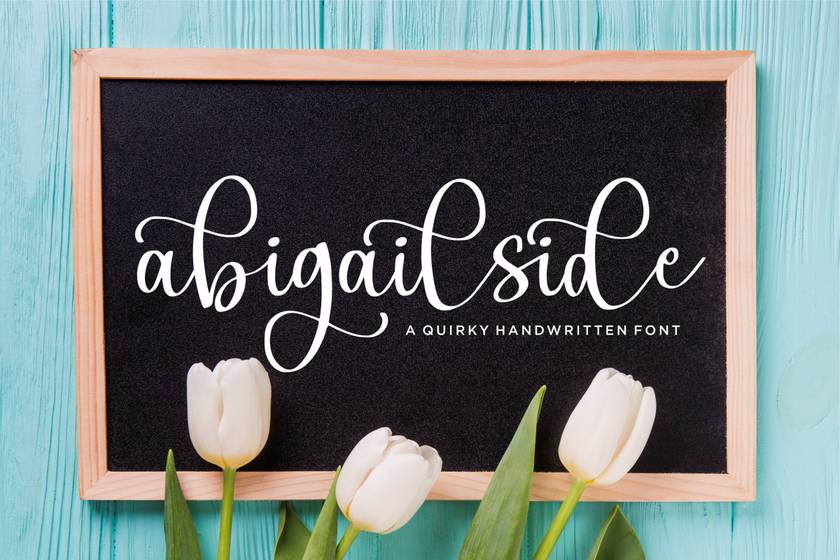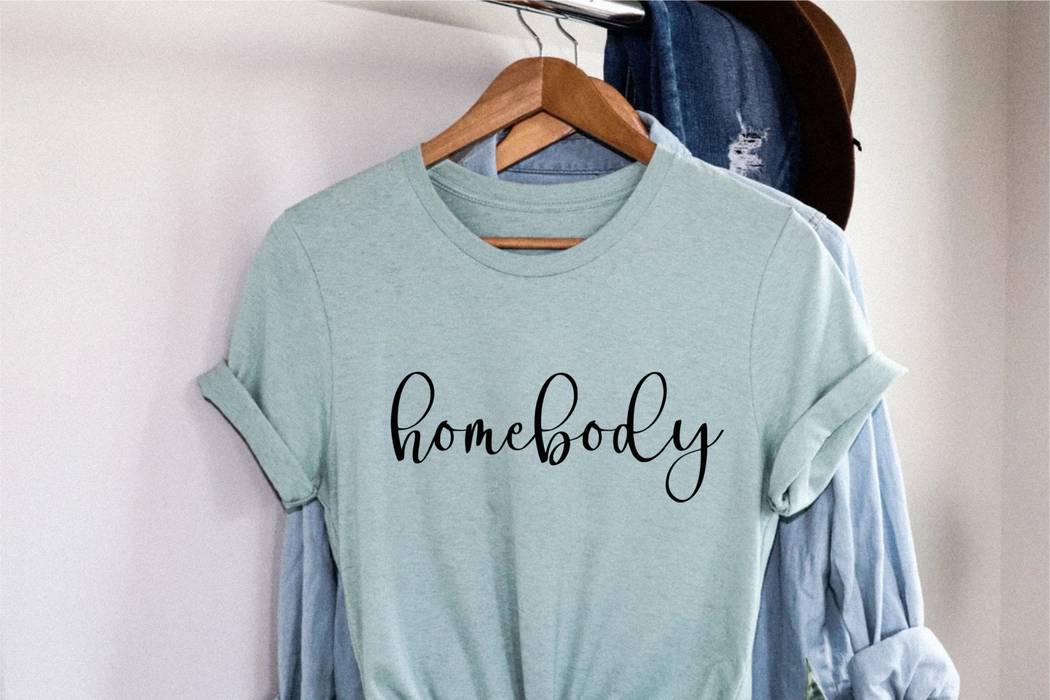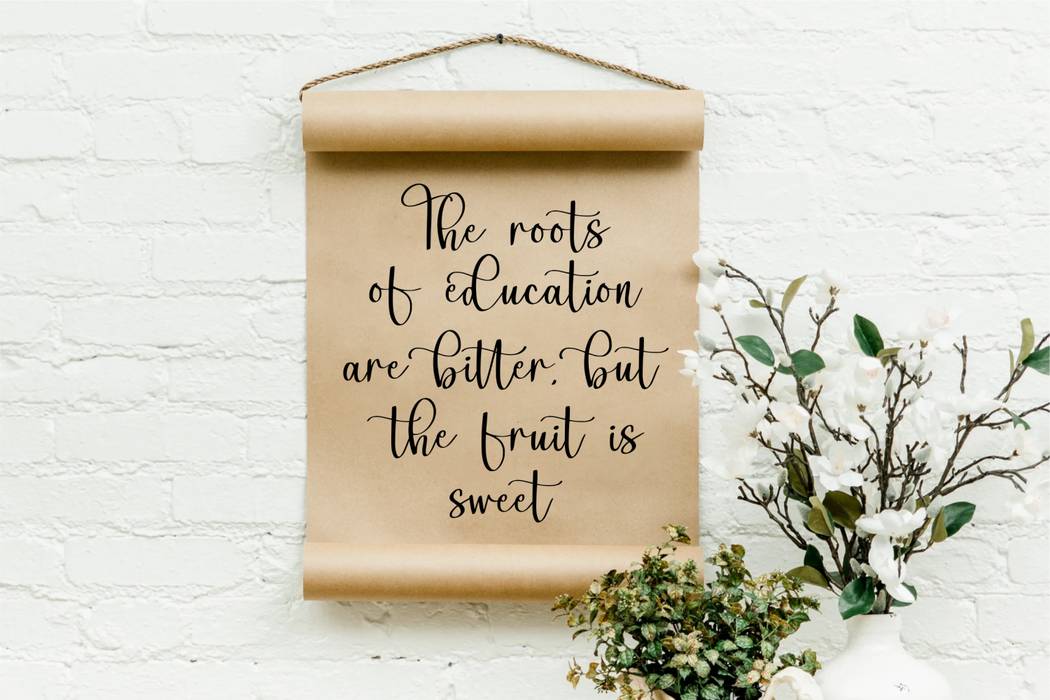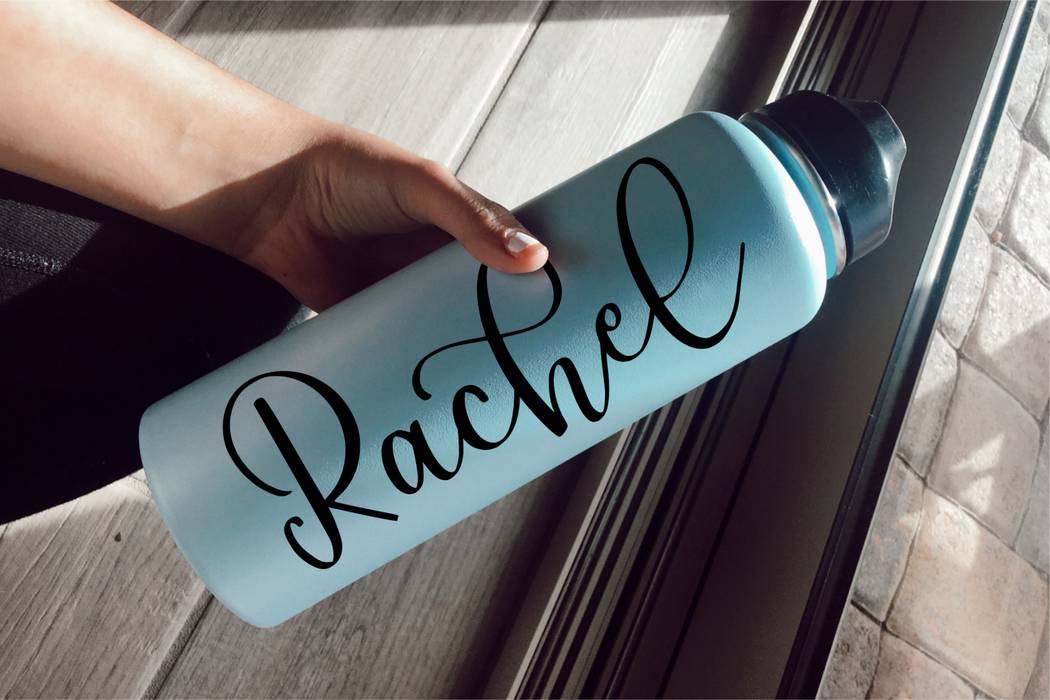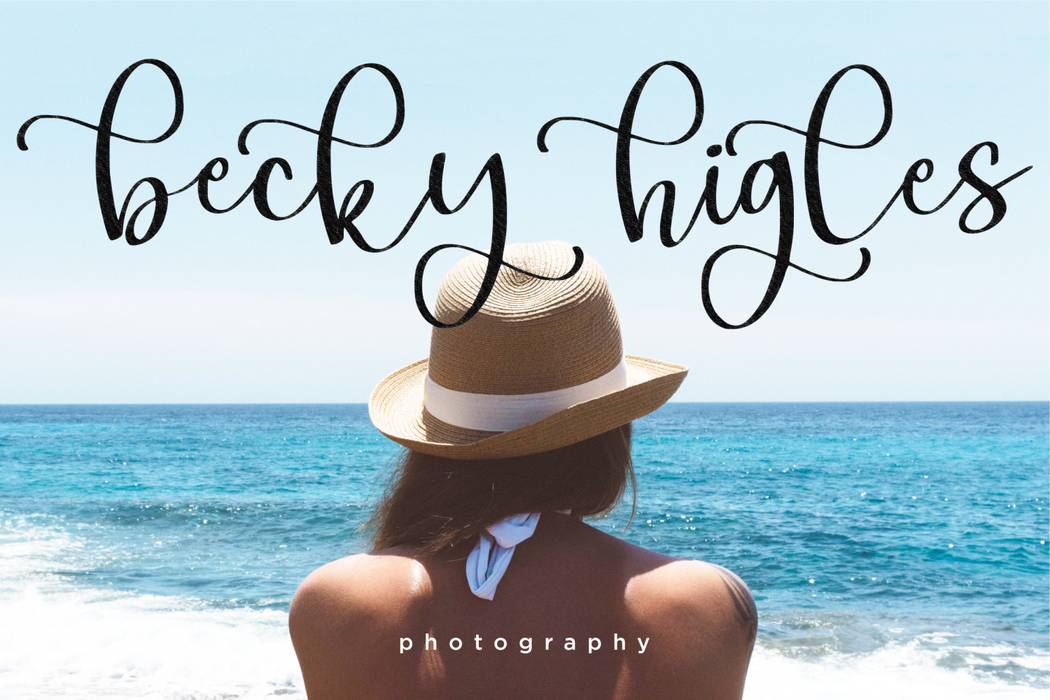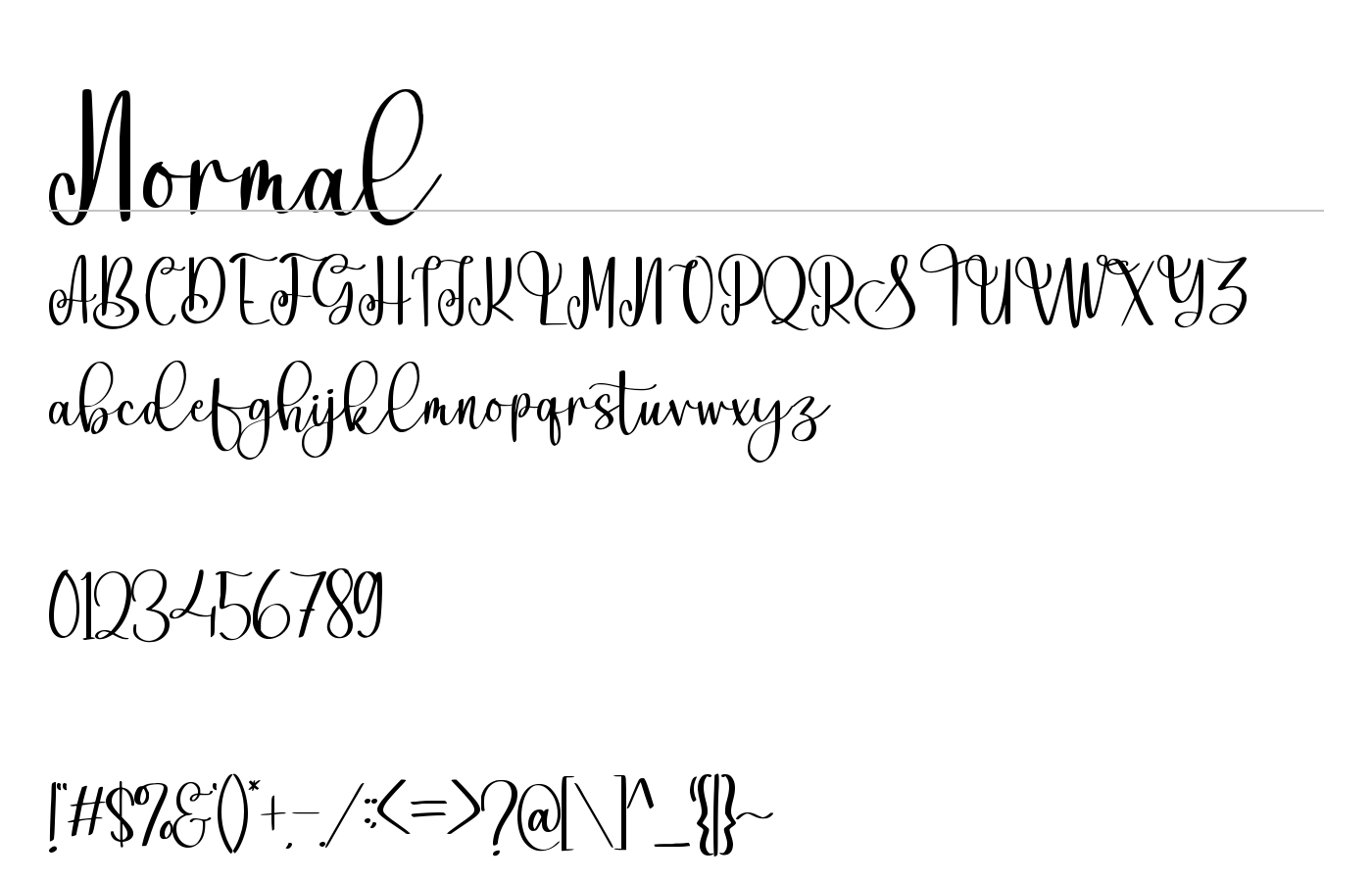
Abigailside is a charming, delicate script font characterized by its tall, narrow letterforms and graceful, flowing strokes. Its whimsical, handwritten style with varied stroke widths and playful flourishes makes it ideal for elegant invitations, feminine branding, and creative projects that seek a personal, artistic touch. This font works beautifully in headlines and decorative text where a distinctive, stylish presence is desired.
Abigailside Font
About Abigailside Font